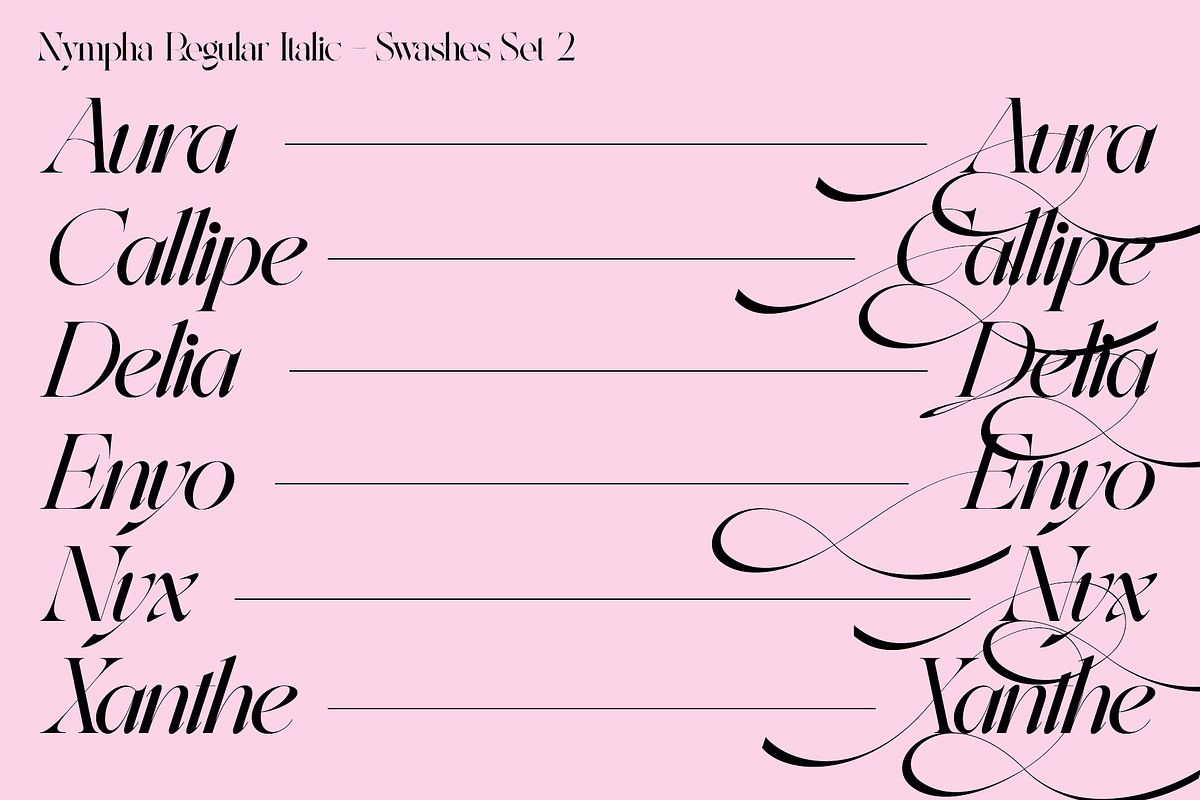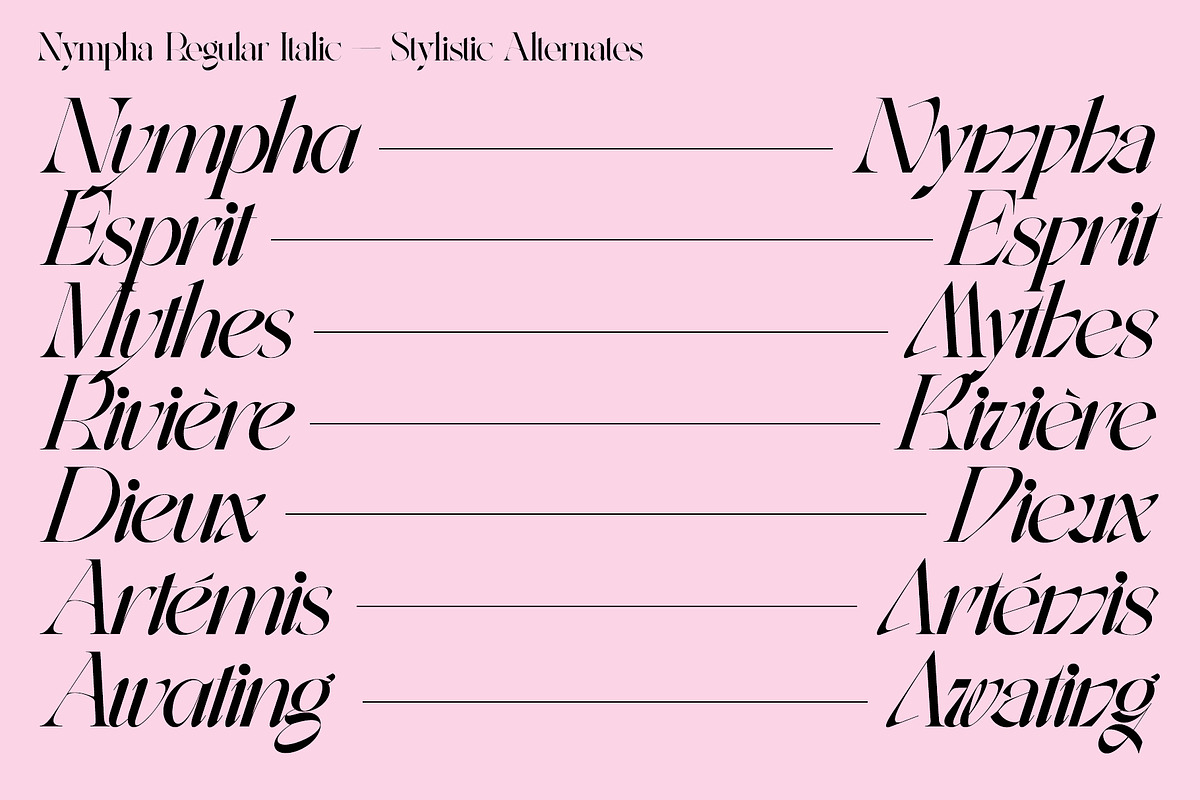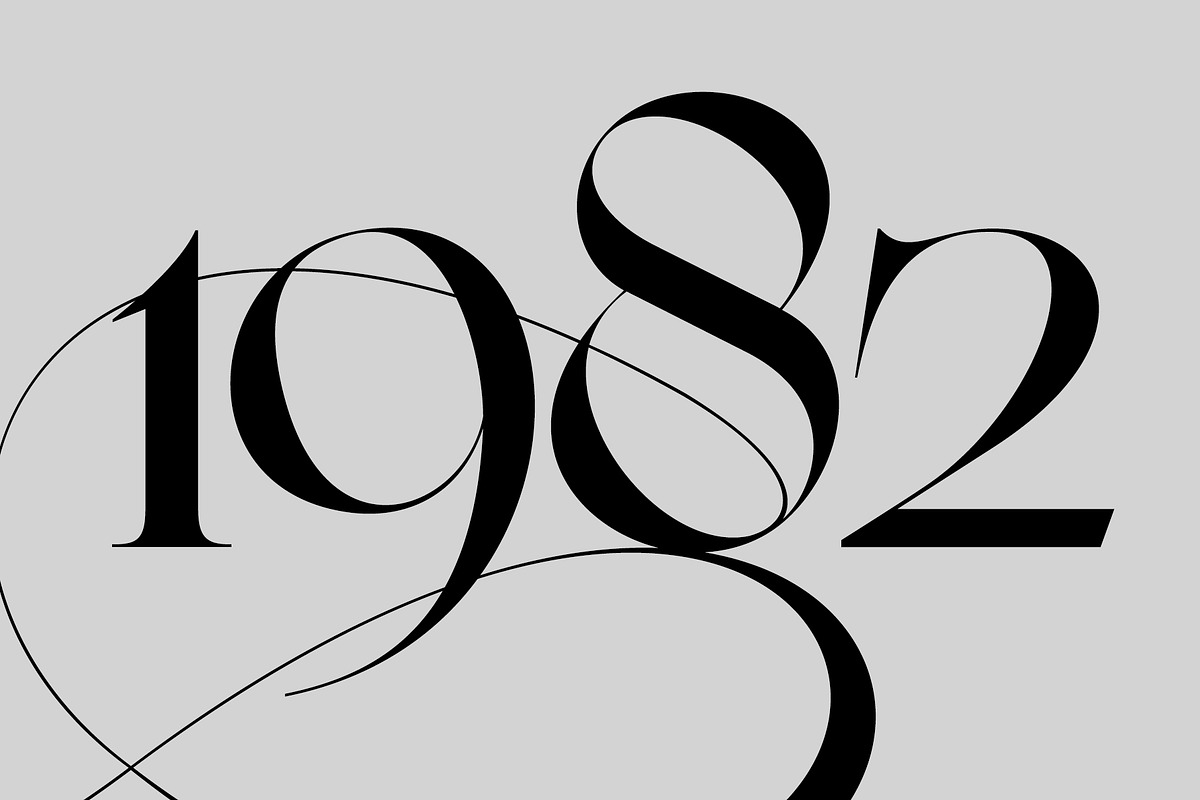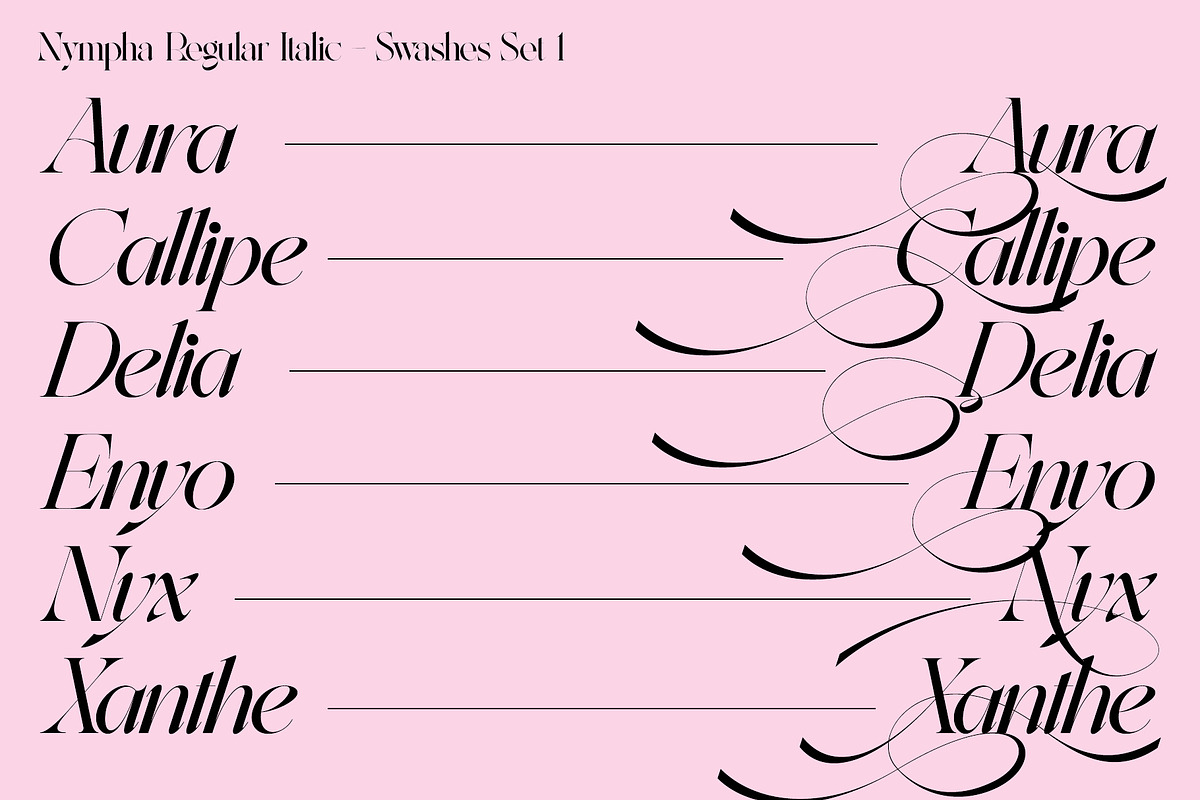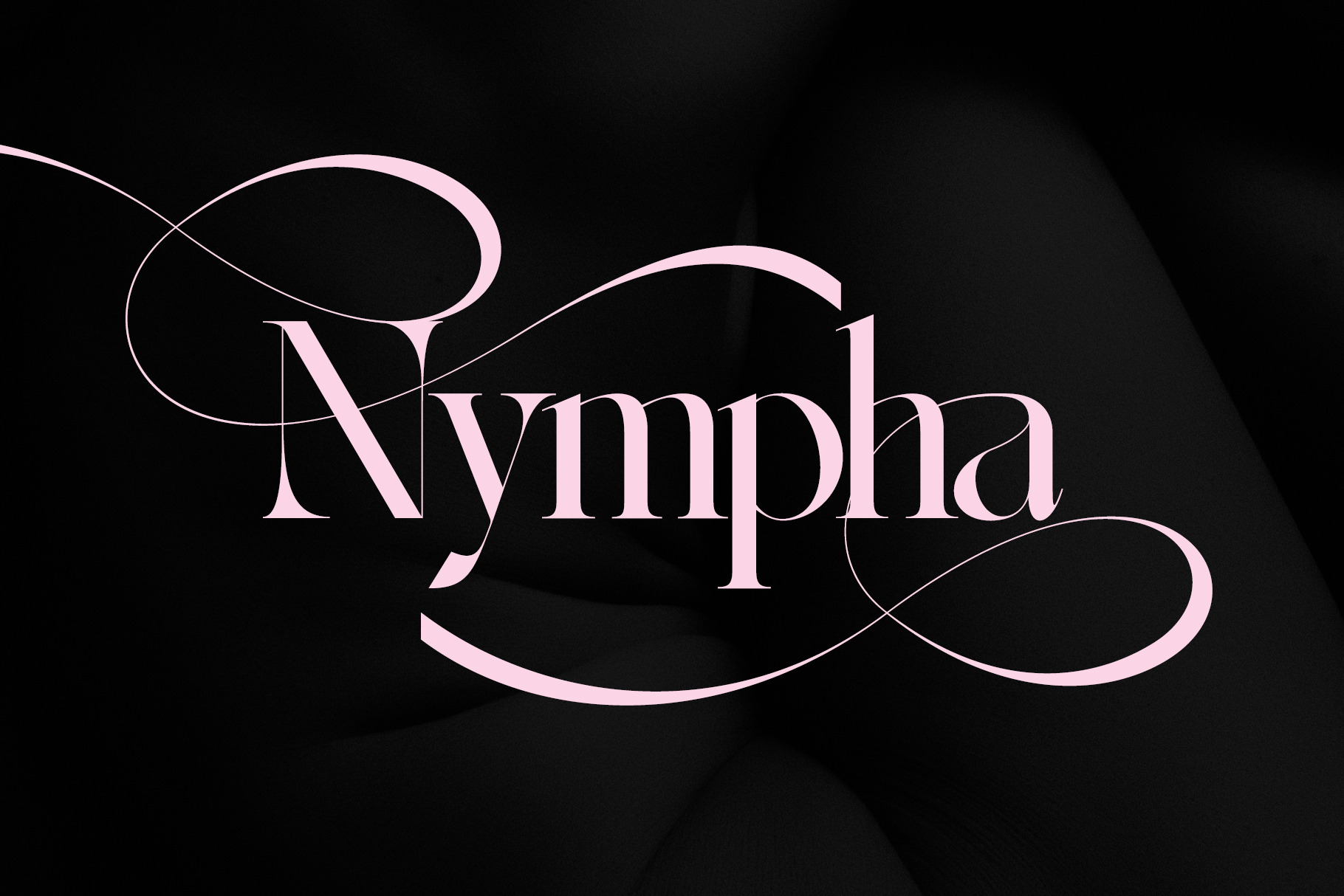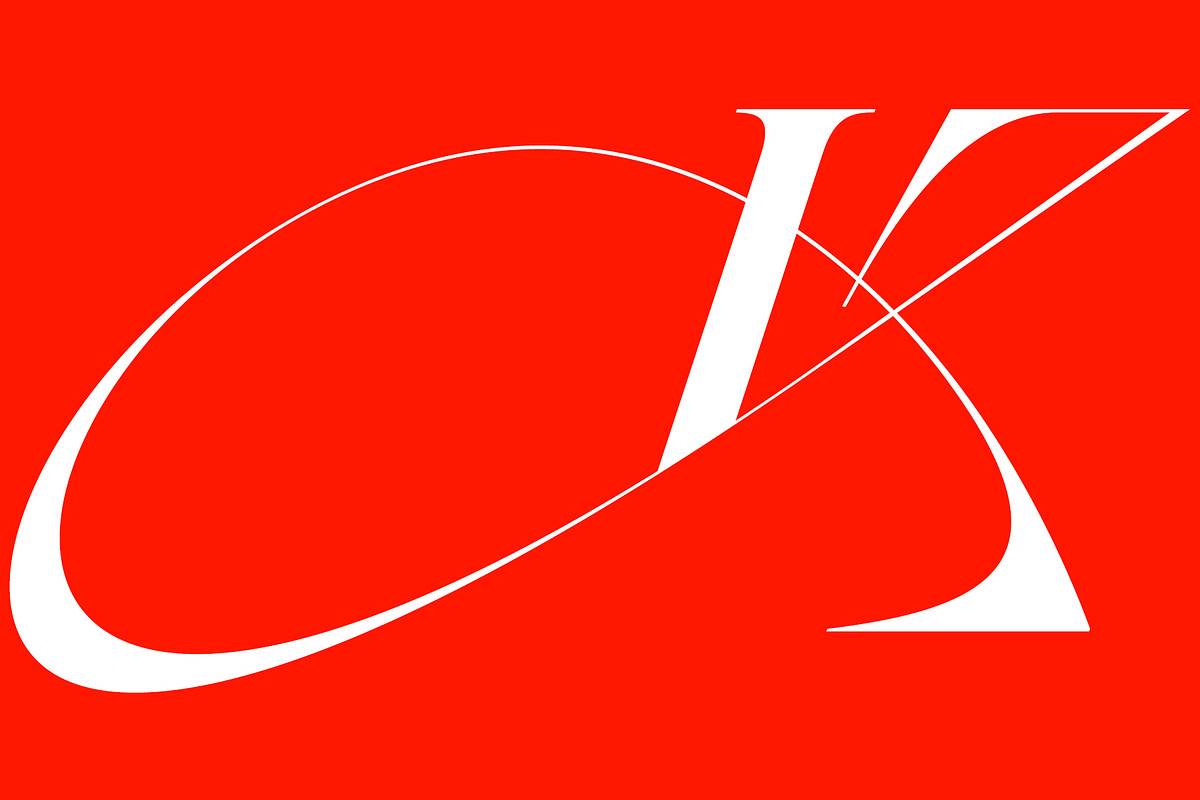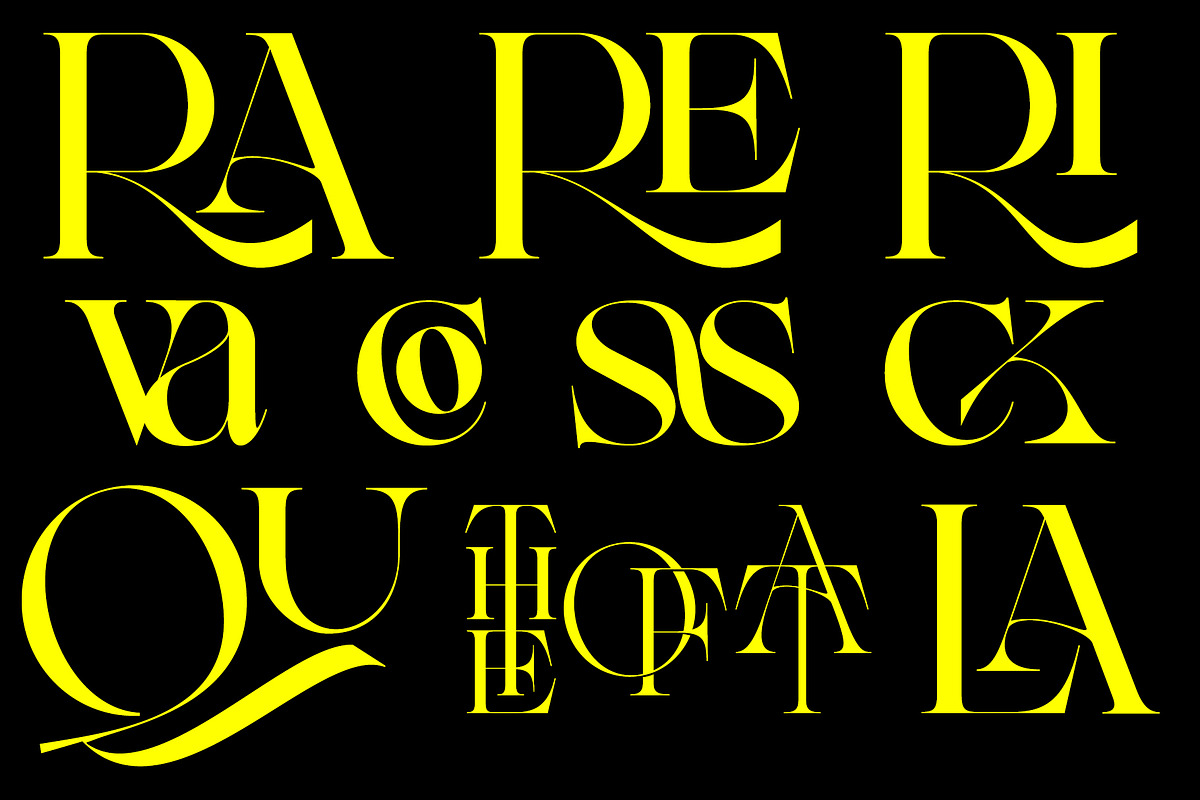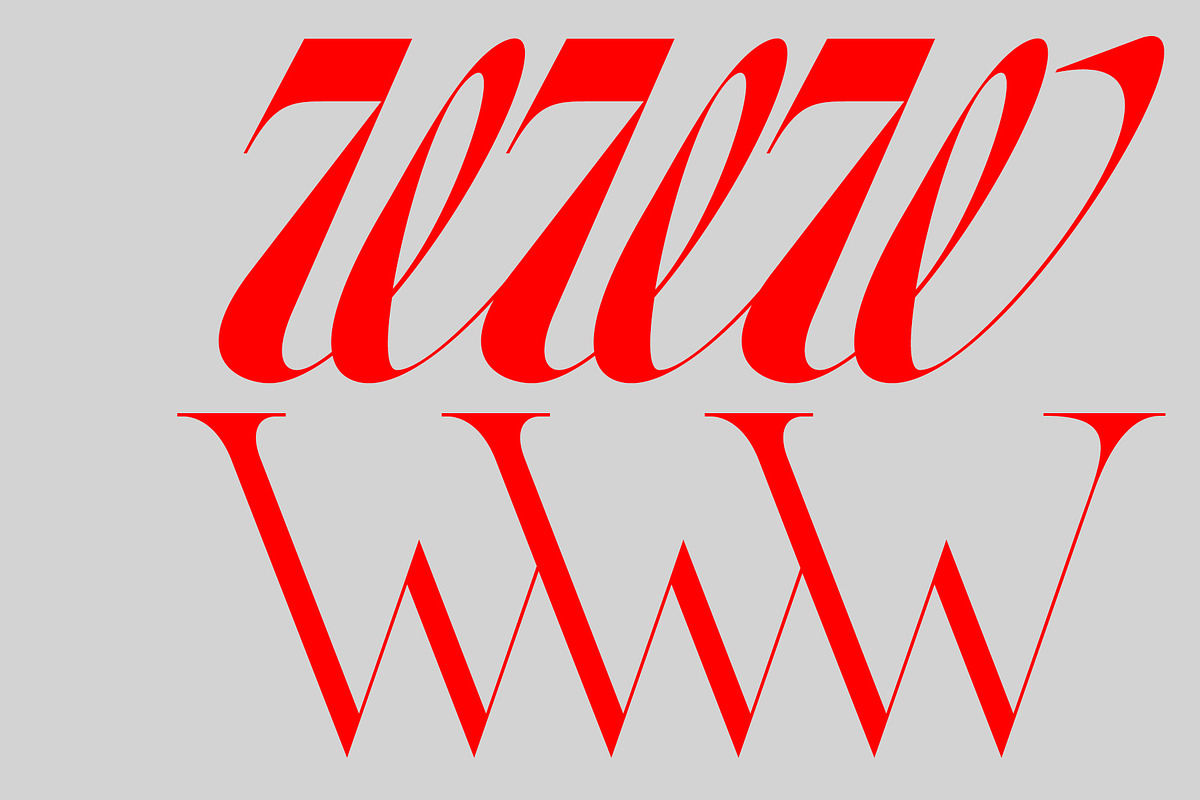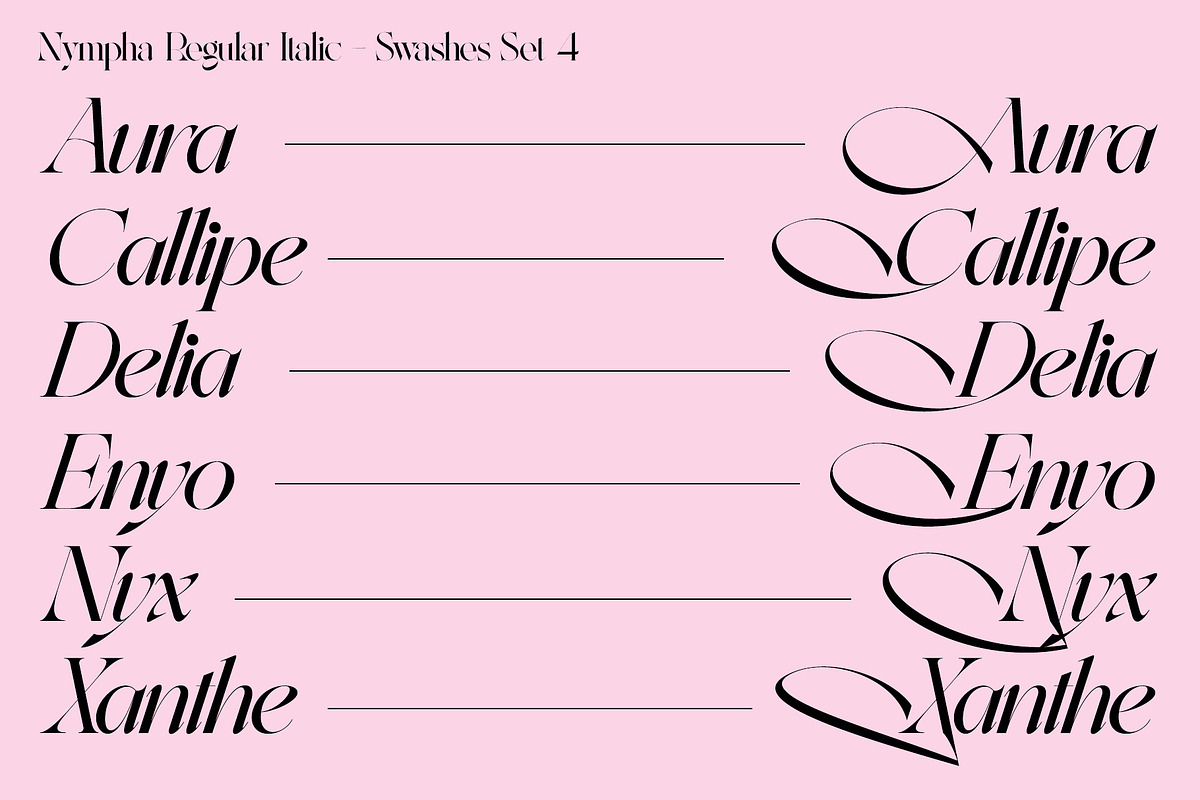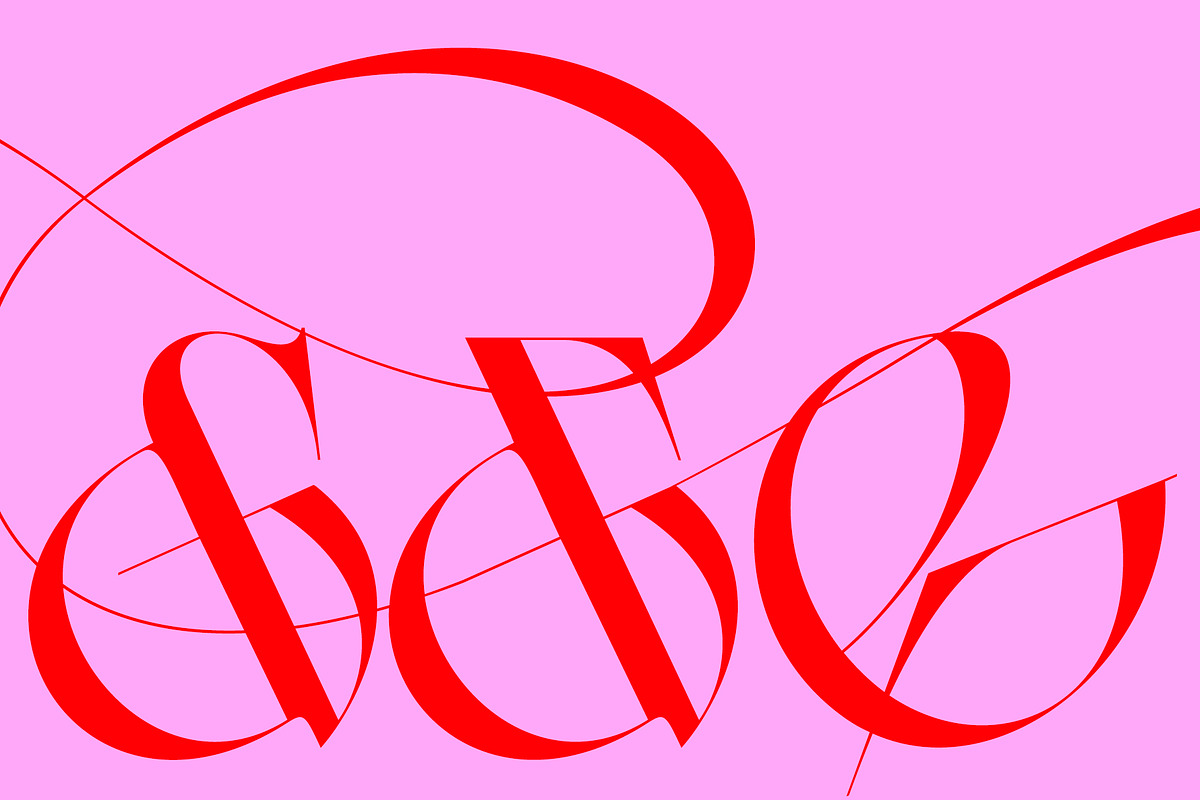
Nympha Luxurious Font
Full walkthrough of Nympha's Features:
- 4 Styles
- 2 Weights
- Over 3200 characters
- Up to 10 stylistic variations for each character (!)
- European Language Support
- Hundreds of Ligatures, Swashes and Stylistic Alternates
- Old Numerals
- True Italics
- & Much More
Nympha is an elegantly crafted and luxuriously exuberant serif typeface, exuding femininity and glamour but also a side of exquisity.
Its hard contrast and refined details, along with its opulent swashes and voluptuous curves, create a beautiful and powerful statement to any typographic composition, mixing glamour with a contemporary aesthetic.
One could say Nympha has two distinct, yet connected, personalities in the form of two stylistic sets of characters: a contemporary and elegant one and an exquisite and unusual one, both can (and should) be mixed to achieve surprising results.
Nympha offers a vast amount of swashes, alternates and ligatures, featuring up to 10 stylistic variations for each character, making it possible to generate endless compositions with ease.